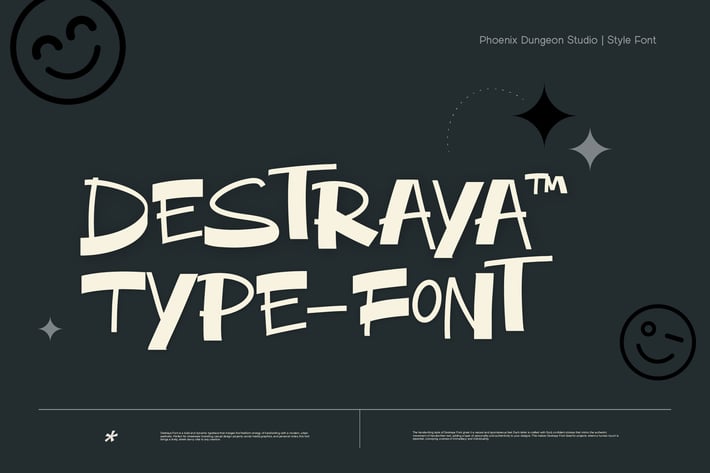
Destraya Font
Destraya Font is a bold and dynamic typeface that merges the freeform energy of handwriting with a modern, urban aesthetic. Perfect for streetwear branding, casual design projects, social media graphics, and personal notes, this font brings a lively, street-savvy vibe to any creation.